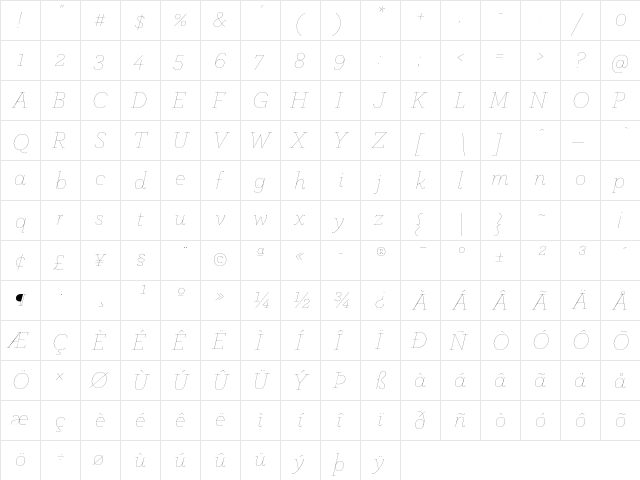
ArcherPro Hairline Italic
Design Context for ArcherPro Typeface
ArcherPro offers clean, dependable letterforms without strong stylistic allegiance, making it a practical choice for designers who need flexibility. Its italic angle brings a sense of urgency and motion to the letterforms. Its slender proportions lend an understated elegance to any composition.
Pro Tip: Use ArcherPro for emphasis, pull quotes, and subheadings where its slanted energy can add rhythm to the layout.